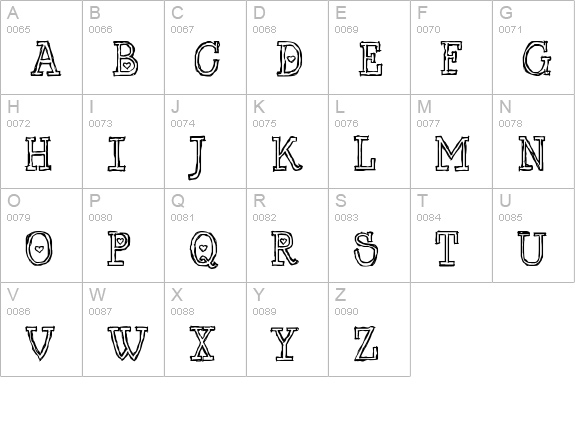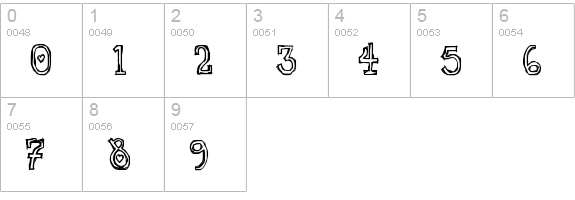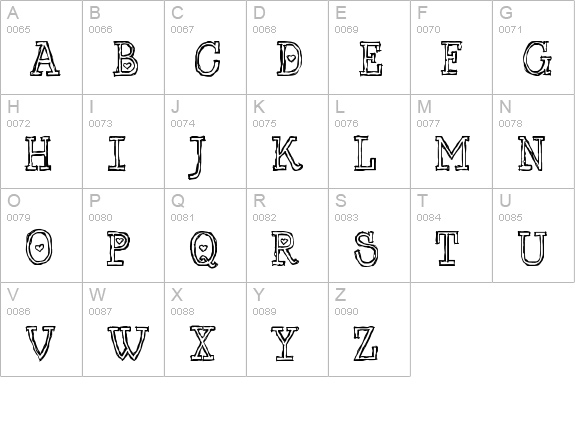
LT Chickenhawk Font Details
Introducing LT Chickenhawk, a captivating and unique font that will bring a playful and energetic touch to any design project. With its bold and dynamic letterforms, this font exudes a sense of excitement and adventure, making it perfect for everything from children's books and comic strips to branding and advertising campaigns. LT Chickenhawk is the ultimate choice for those seeking a font that breaks free from convention and adds a youthful and vibrant flair to their designs. Its quirky and whimsical style is sure to capture attention and leave a lasting impression. But what makes LT Chickenhawk even more appealing is the fact that it is free! Yes, you read that right. This incredible font is freely available to download at FontsMarket.com, making it accessible to designers of all budgets and skill levels. Whether you're a seasoned professional or just starting out in the world of design, LT Chickenhawk offers endless possibilities for creative expression. Its wide range of alternate characters and ligatures allow you to experiment and create truly unique and personalized designs. So why wait? Download LT Chickenhawk today and let your imagination take flight. Embrace the freedom of this remarkable font and watch as your designs soar to new heights. Get ready to captivate your audience with the playful charm and boundless creativity that LT Chickenhawk brings to the table.